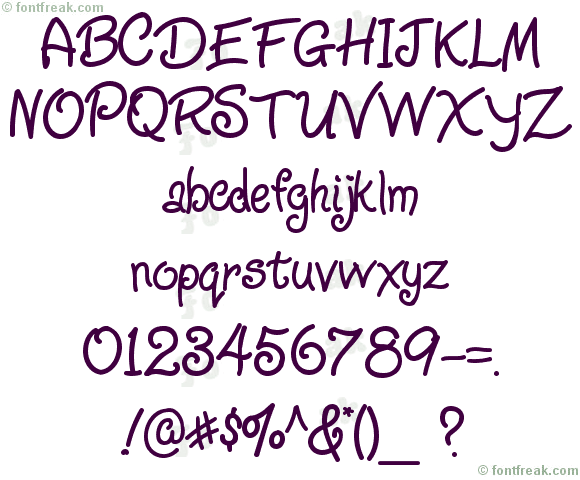
Ziggy Zoe
About Ziggy Zoe
Ziggy Zoe is a captivating handwritten font by West Wind Fonts, classified as a decorative style that exudes charm and personality. With its playful strokes and whimsical design, this font features a medium stroke weight that balances elegance and legibility. The font showcases a moderate contrast between thick and thin lines, giving it a lively appearance. The spacing is well-considered, allowing for a clear reading experience while maintaining a light and airy feel, making it perfect for various creative applications.
This font is particularly well-suited for use in wedding invitations, where its romantic flair can set the tone for a special occasion. Additionally, Ziggy Zoe shines in designing playful children’s book covers, as its friendly style appeals to younger audiences. It is also an excellent choice for restaurant menus that aim to communicate a casual and inviting atmosphere, or for social media graphics that require a touch of uniqueness. Graphic designers, small business owners, and content creators will find this font to be a versatile tool in their design arsenal.
What truly sets Ziggy Zoe apart is its ability to convey emotion and warmth through its handwritten aesthetic. Unlike many digital fonts that can feel sterile, Ziggy Zoe brings a personal touch to any project. Whether you are crafting a heartfelt message or promoting a creative endeavor, the Ziggy Zoe font free download offers an opportunity to infuse your work with character and charm. This font is not only a visual delight but also a practical choice for anyone looking to enhance their designs with a distinctive and appealing typeface.